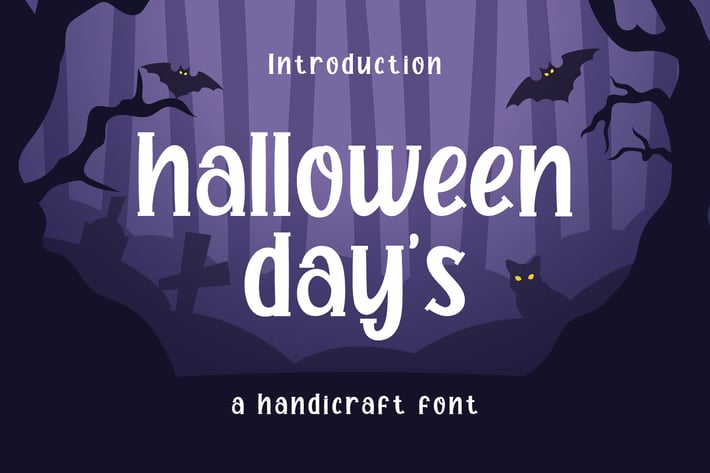
Halloween Day's - Handcraft Display Font
Haloween Day's is a stylish display font for a variety of designs. Haloween Day's can be used for products such as handcraft, product packaging, quotes, product design, craftsmen, labels, photography, watermarks, logos & branding. Everything can be accessed using software that supports Opentype, such as Adobe Indesign, Adobe CS Illustrator, Adobe Photoshop CC, and Corel Draw.